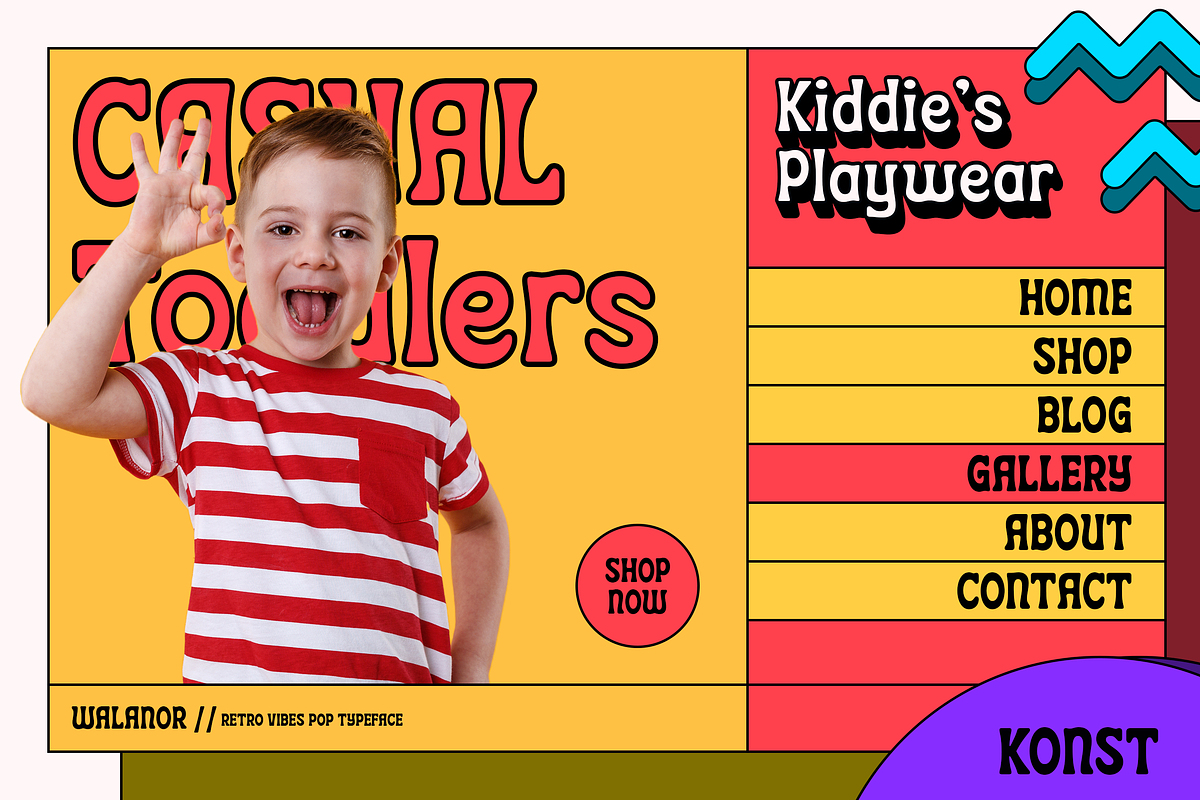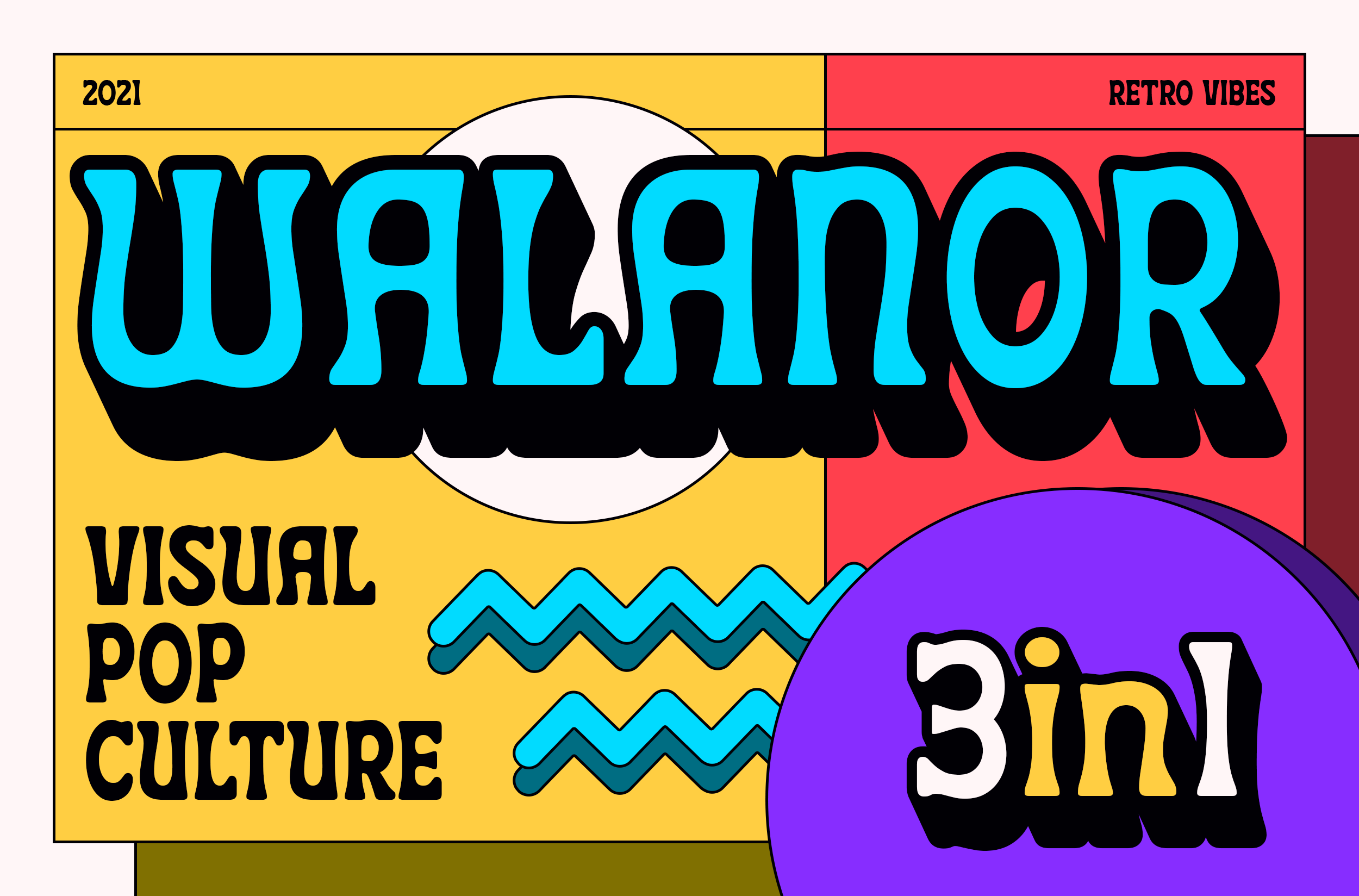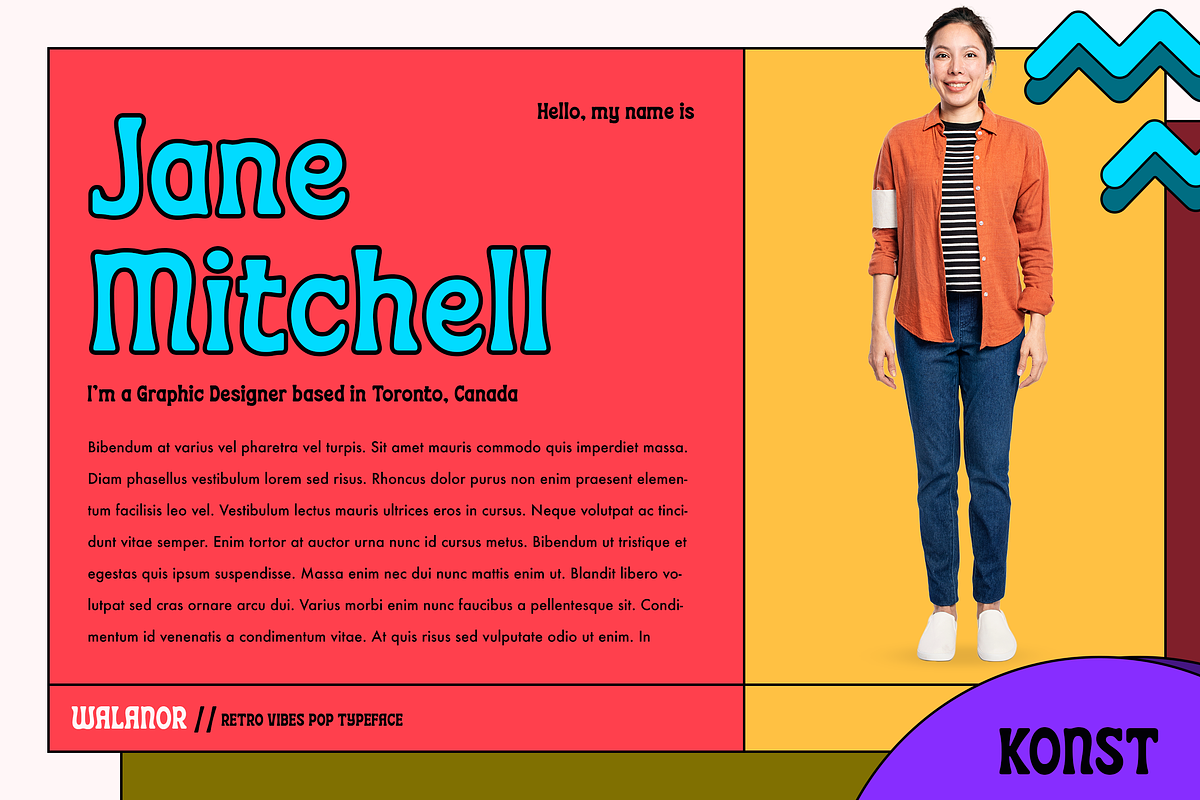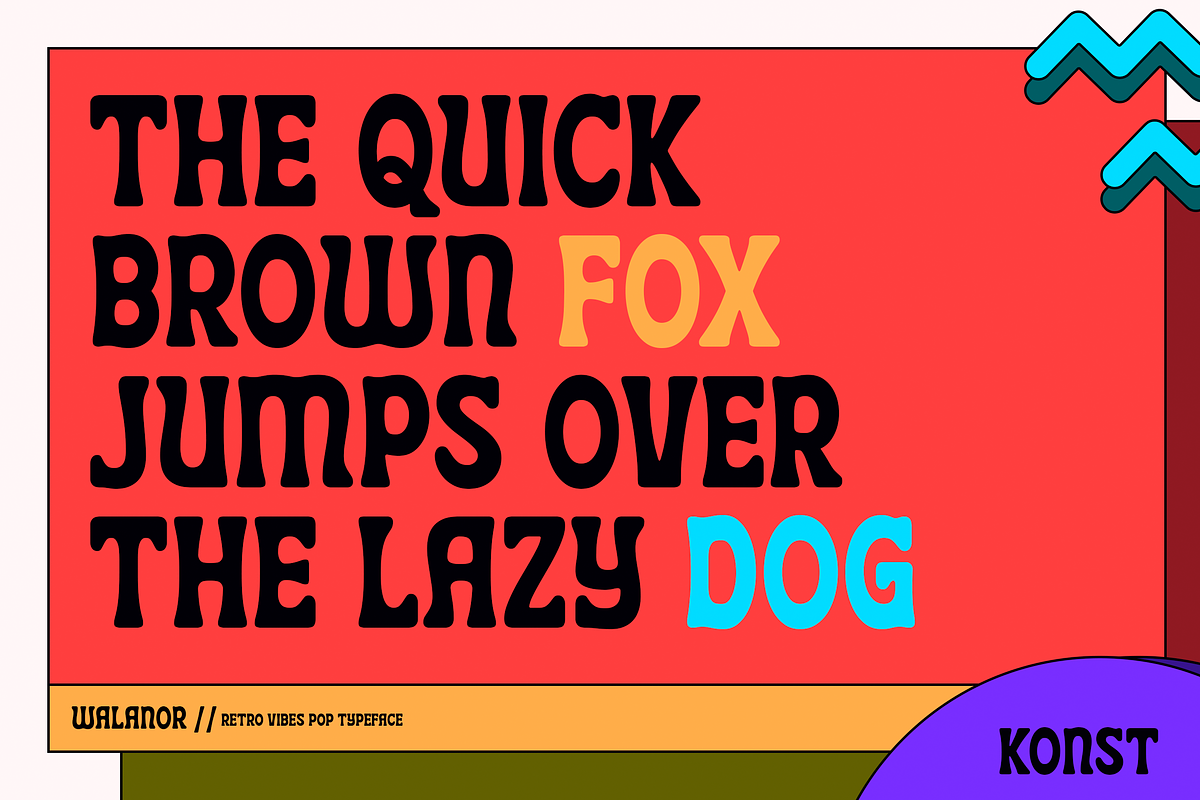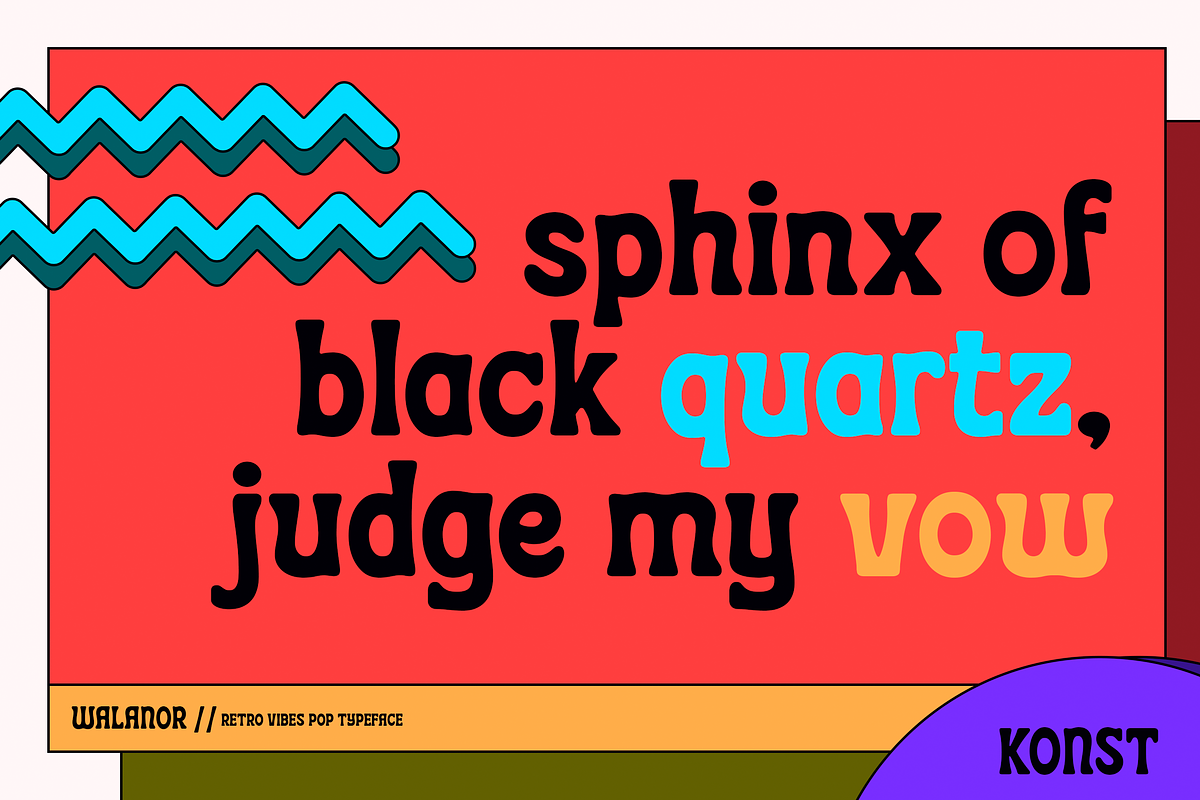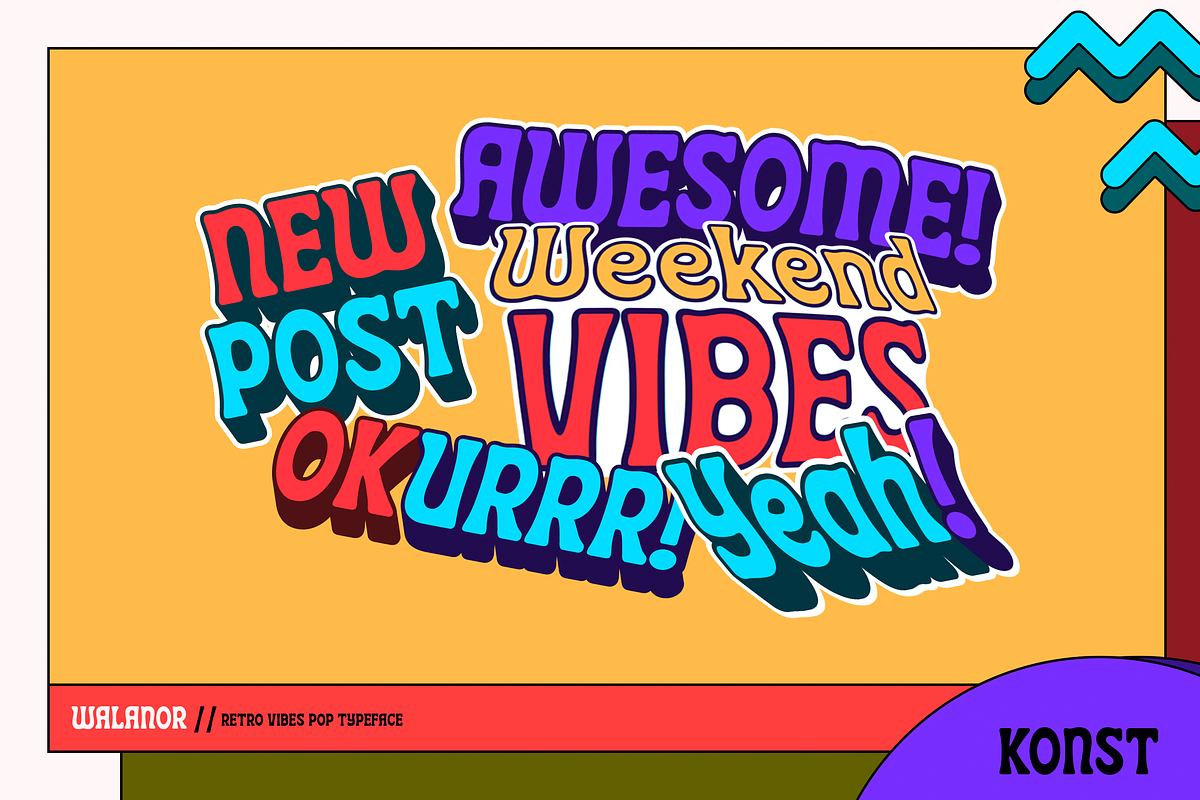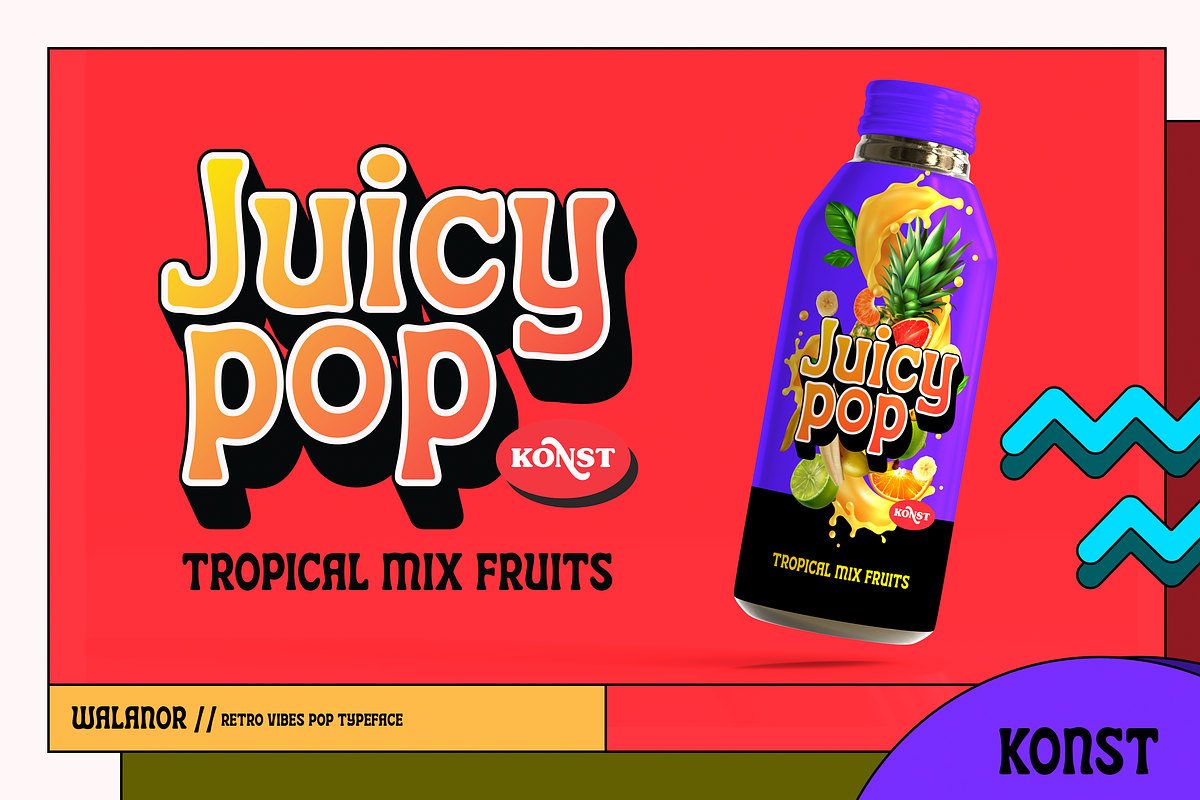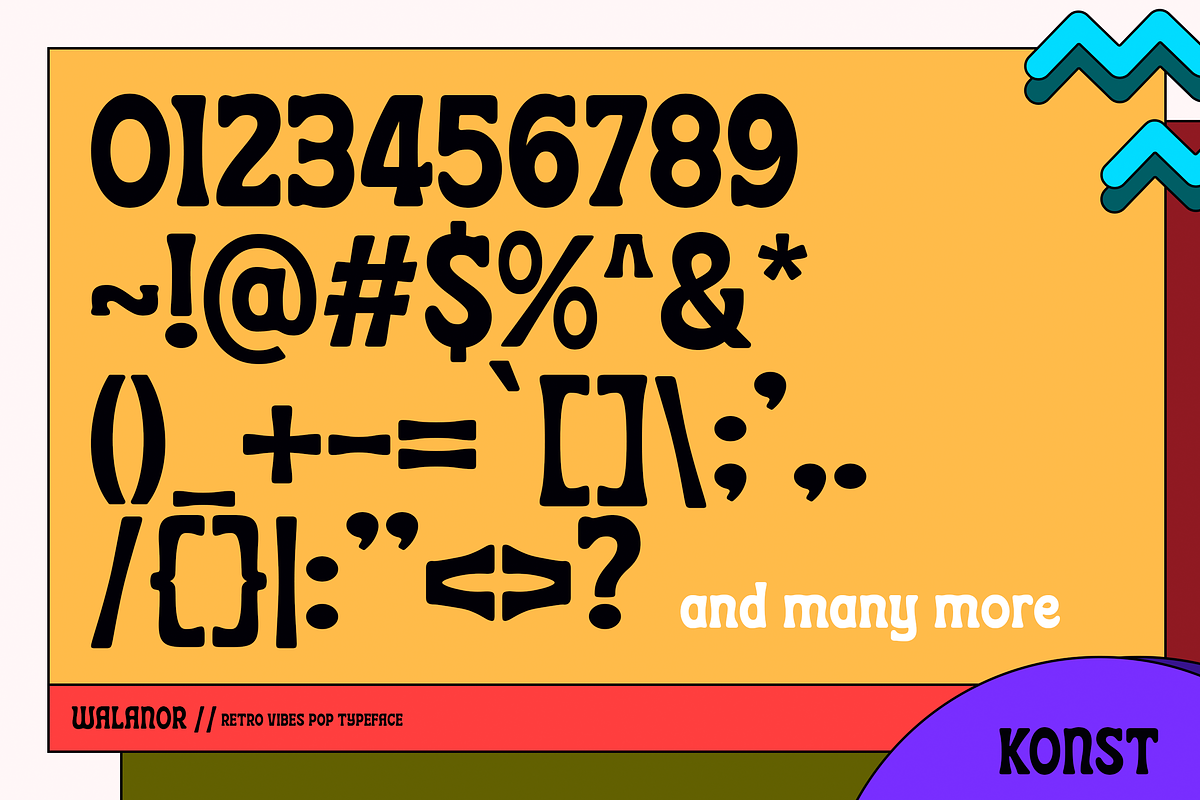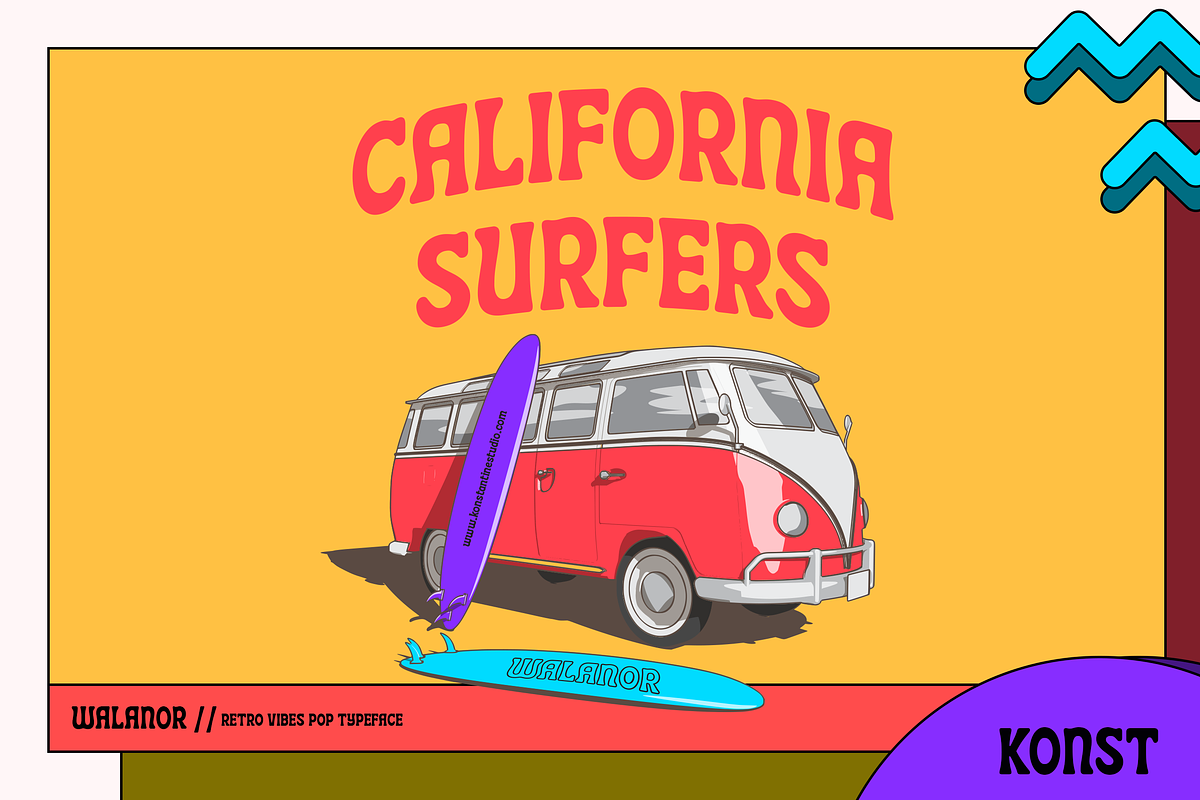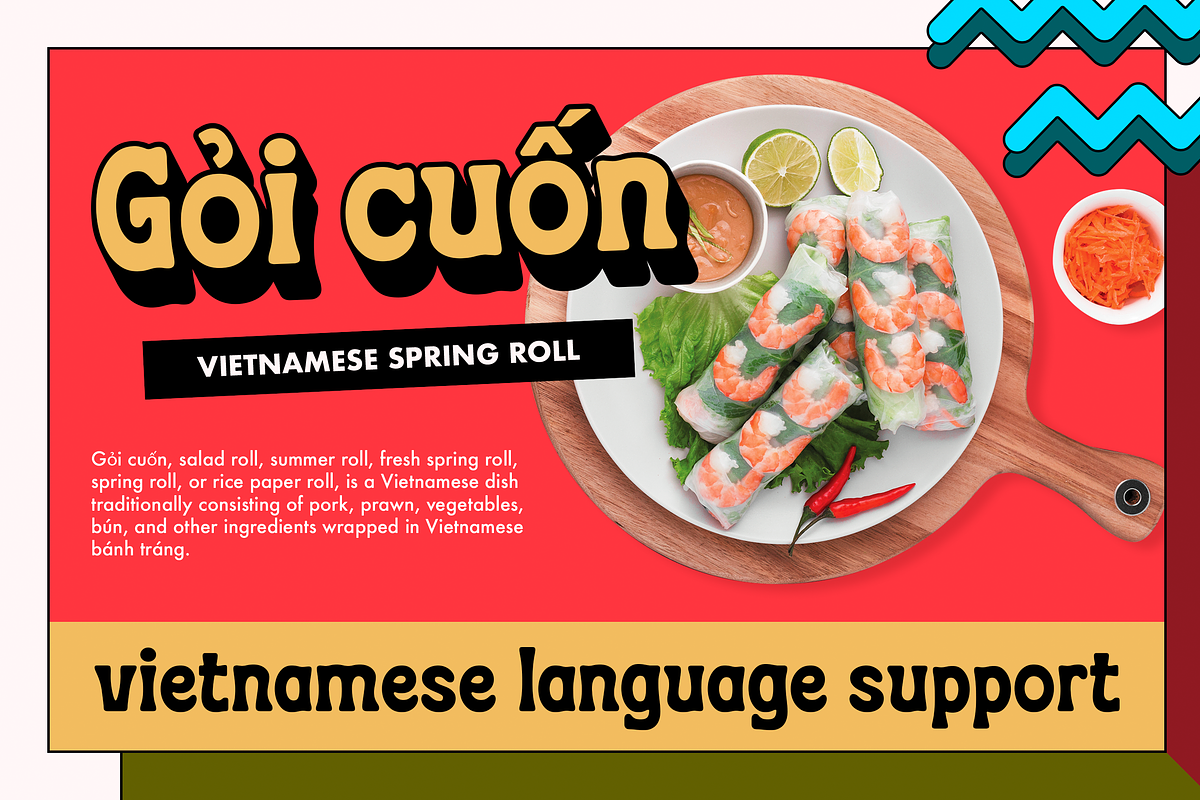
Walanor - Vintage Retro Pop Fonts
Jump back to the retro vintage vibes with WALANOR. A bold, casual, and fun display font. Inspired by the visual trends of so-called retro and vintages from the 80s era. We talk about disco, pop culture, vinyl records, sign painting, magazines, posters, labels, and many more.
We go further with the language support on this one. This is the first time we make fonts that support the Vietnamese language, and also more. Just try to type it up with your language. If it's there, then it's there.
Language Support: Afrikaans, Albanian, Asu, Basque, Bemba, Bena, Breton, Catalan, Chiga, Colognian, Cornish, Croatian, Czech, Dnaish, Dutch, Embu, English, Estonian, Faroese, Filipino, Finnish, French, Friulian, Galician, Ganda, German, Gusii, Hungarian, Inari Sami, Indonesian, Irish, Italian, Jola-Fonyi, Kabuverdianu, Kalenjin, Kamba, Kikuyu, Kinyarwanda, Latvian, Lithuanian, Lower Sorbian, Luo, Luxembourgish, Luyia, Machame, Makhuwa-Meetto, Makinde, Malagasy, Maltese, Manx, Meru, Morisyen, Northern Sami, North Ndebele, Norwegian Bokmål, Norwegian Nynorsk, Nyankole, Oromo, Polish, Portuguese, Quechua, Romanian, Romansh, Rombo, Rundi, Rwa, Samburu, Sango, Sangu, Scottish Gaelic, Sena, Serbian, Shambala, Shona, Slovak, Soga, Somali, Spanish, Swahili, Swedish, Swiss German, Taita, Teso, Turkish, Upper Sorbian, Uzbek (Latin), Vietnamese, Volapük, Vunjo, Walser, Welsh, Western Frisian, Zulu
Finally, a solid solution for the "make the design POP" from a client.